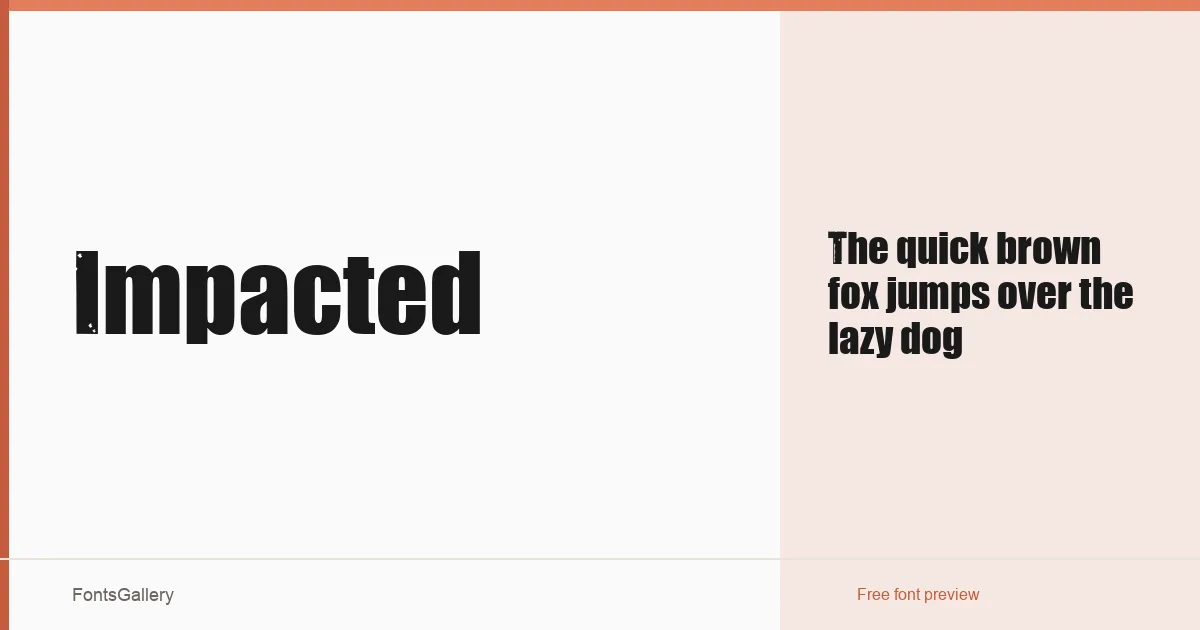
About Impacted Font
Impacted is a bold, modern display typeface designed to command attention and make an immediate visual statement. Its grunge-infused character gives it a raw, edgy energy that sets it apart from conventional headline fonts. This typeface is built for designs that need to feel powerful, urgent, and unmistakably striking.
The letterforms of Impacted carry a heavy, assertive weight that reflects its bold and modern sensibility, while subtle grunge textures and irregularities add grit and personality to each character. This combination of strength and raw visual tension makes it a compelling choice for designs that demand presence and attitude. The display-category construction ensures that individual letters read with maximum impact at large sizes.
Impacted is ideally suited for posters, advertisements, headlines, signage, and T-shirt designs where visual impact is the primary goal. Its aggressive character thrives in contexts that call for bold, large-scale typography. It pairs effectively with the clean neutrality of Helvetica or the distinctive style of Aresink to create compelling typographic contrast.